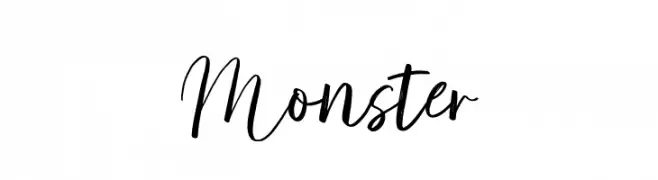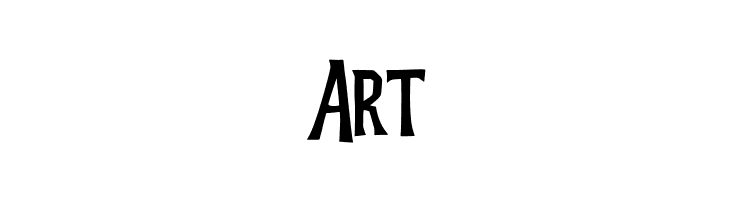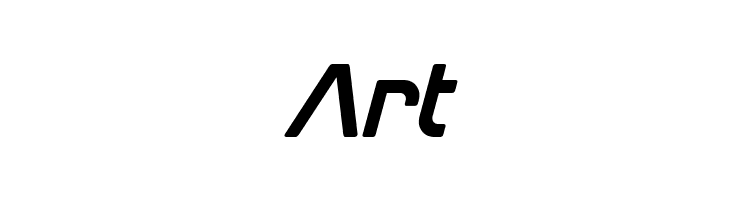
A modern, condensed italic font with uniform stroke thickness and dynamic slant.
A modern, italicized font with a sleek, dynamic design.
Edgy, graffiti-style font with sharp, angular forms and a hand-drawn look.
A bold, playful font with a hand-drawn, energetic style.
A bold, rounded font with a playful and modern retro vibe.
A lively and dynamic script font with fluid, cursive letterforms and elegant strokes.
A bold, italic typeface with thick, angular strokes and a dynamic presence.